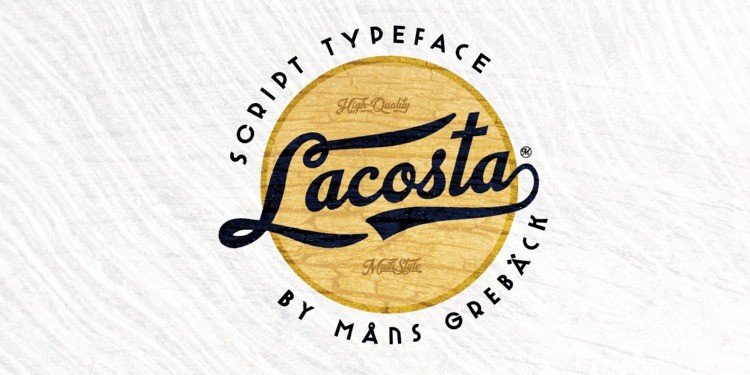
Lacosta Calligraphy Font Free
Lacosta Calligraphy Font results out of a stunning pairing of a brush pen that makes it look incredibly endearing and authentic. Included in the family is the Lacosta Line typeface, a swash underlined variation of the original font.
Lacosta Calligraphy Font is a decorative script typeface, perfect for company or product logotypes, or any typographic art that requires that classic custom look.